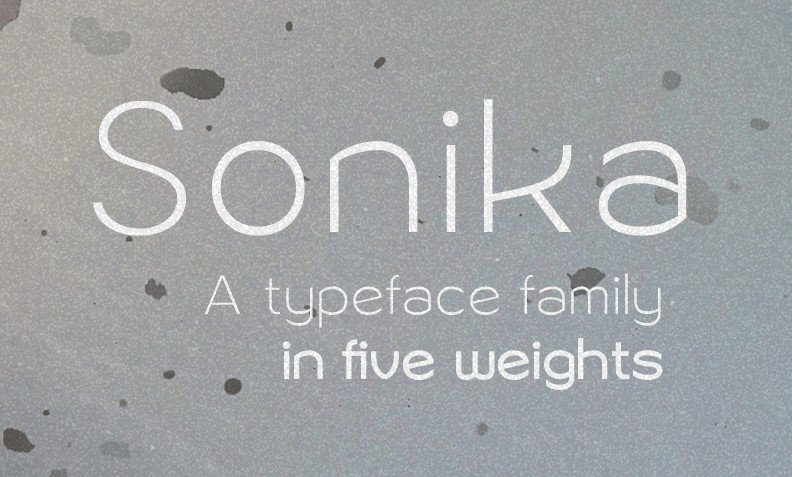
There are sorts of markets. One in each of that may be a demo model is to be had as in reality. It consists of characters like higher, lowercase, numerals.
Aside from those, all of these weights can help hundreds of international languages. Due to which many designs can use this sans serif font of their very very own local languages.